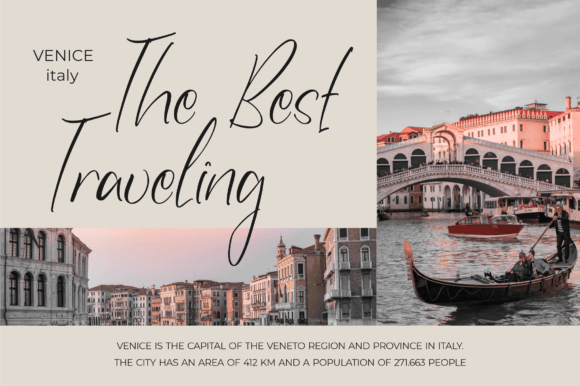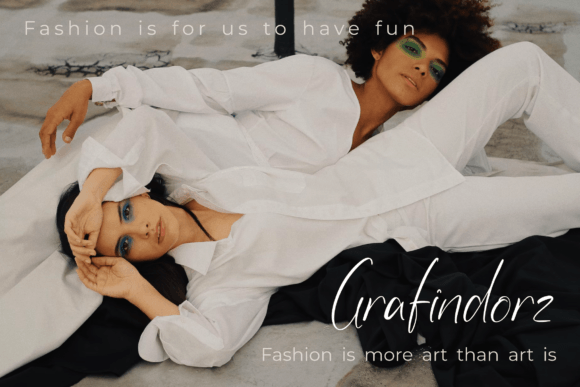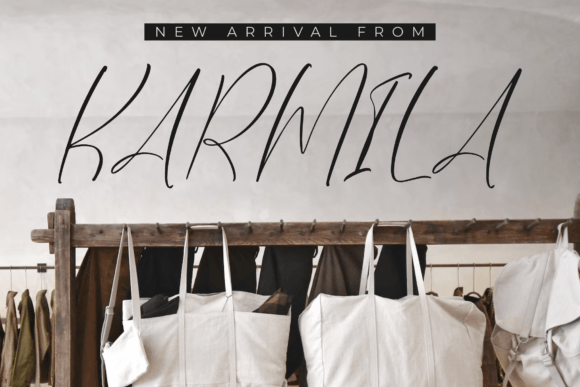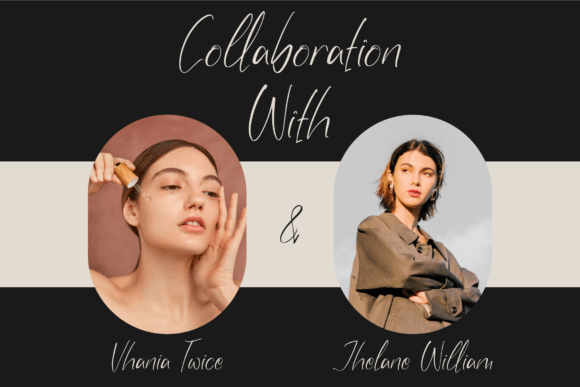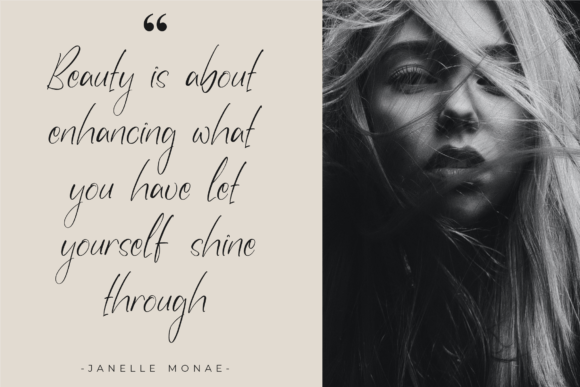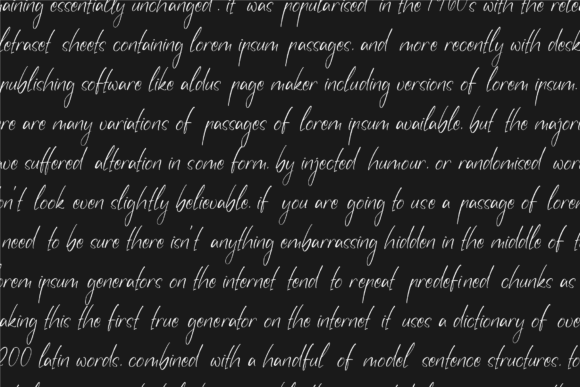
Discover the Timeless Charm of Almadea Montesh Font
Have you ever stumbled upon a handwritten note that sparks joy and makes you feel special? That’s exactly the magic we aim to capture with the Almadea Montesh Font. This elegant handwritten font is designed to add a personal touch to your designs, making it perfect for special occasions like weddings, birthdays, and anniversaries.
Whether you’re a seasoned designer or a creative enthusiast, the Almadea Montesh Font is an invaluable addition to your toolkit. Its unique style and versatility make it suitable for a wide range of designs, from wedding invitations and thank you cards to logos and greeting cards. With this font, you can infuse your creations with a touch of warmth and personality that’s sure to leave a lasting impression.
Almadea Montesh Font Key Features
- Font Family: Almadea Montesh Font is a beautiful, elegant script font.
- Unique Characteristics: Almadea Montesh Font features swashes, ligatures, and alternate characters to add a touch of elegance and sophistication.
- Language Support: Supports a wide range of languages, including Latin-based languages and some Cyrillic languages.
- Character Count: Contains over 500 characters, including uppercase and lowercase letters, numbers, and punctuation marks.
Almadea Montesh Font Review
I recently had the chance to work with the Almadea Montesh Font, and I have to say, it’s been a mixed bag for me. On one hand, there are some things that I really like about it.
✨ I love the unique, elegant feel of this font. It’s perfect for projects that need a touch of sophistication and refinement. The subtle flair on the letters gives it a distinct character that’s hard to find in other fonts.
✨ Another thing that works well is the font’s versatility. It’s suitable for both body text and headings, and it looks great in a variety of sizes and colors.
⚠️ However, I do have some reservations about the font’s legibility. At smaller sizes, some of the letters can be a bit difficult to read, especially for those with less-than-perfect eyesight.
⚠️ Additionally, I’ve noticed that the font doesn’t have as many language support options as I would like. This might be a concern for projects that require multilingual support.
Overall, I think the Almadea Montesh Font is a great choice for specific projects, but it may not be the best option for everyone. If you’re looking for a unique, elegant font for your next design project, it’s definitely worth considering.
- Unique, elegant feel
- Versatile and suitable for body text and headings
- Great for projects that require sophistication and refinement
- May be difficult to read at smaller sizes
- Limited language support options
For best results, use Almadea Montesh Font in headings and titles to create a striking visual effect.
Use Almadea Montesh Font to create elegant and sophisticated text effects in your designs.
Use Almadea Montesh Font to add a touch of elegance to your presentations and documents.
Almadea Montesh Font is ideal for:
- Editorial and publishing designs
- Set the font as the primary heading font to emphasize key destinations and attractions.
- Use it for subheadings to break up large blocks of text and add visual hierarchy.
- Combine with distressed textures and vintage patterns to enhance the retro aesthetic.
- Use it as the primary logo font to create a memorable and distinctive brand mark.
- Apply it to key messaging and taglines to emphasize the brand’s values and mission.
- Combine with metallic textures and high-contrast color schemes to amplify the luxury feel.
Can I customize Almadea Montesh Font to suit my project’s specific needs?
Yes, Almadea Montesh Font is fully editable, allowing you to customize its characteristics to suit your project’s specific needs. You can adjust font weights, styles, and other attributes using your preferred design application. This flexibility makes Almadea Montesh Font an excellent choice for designers seeking a high degree of customization.